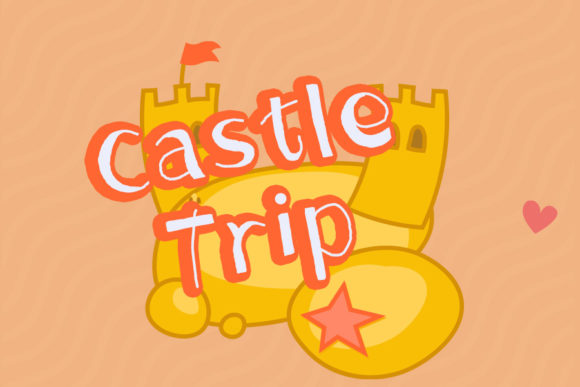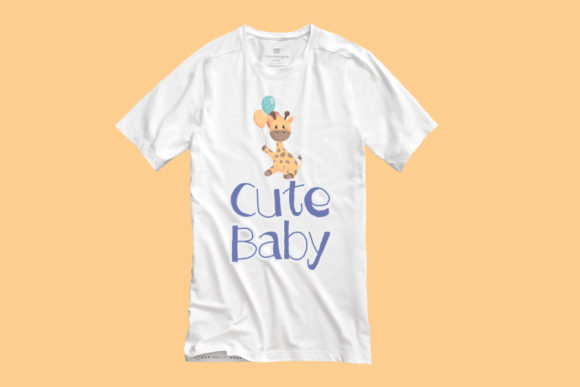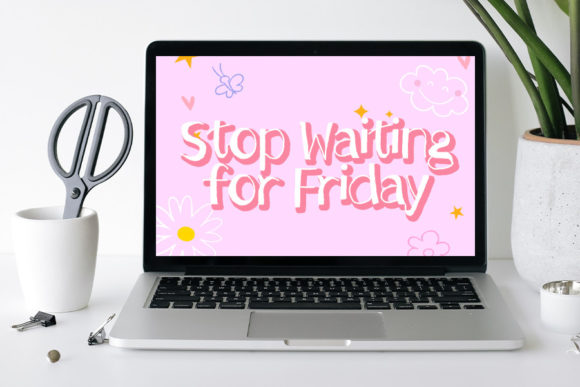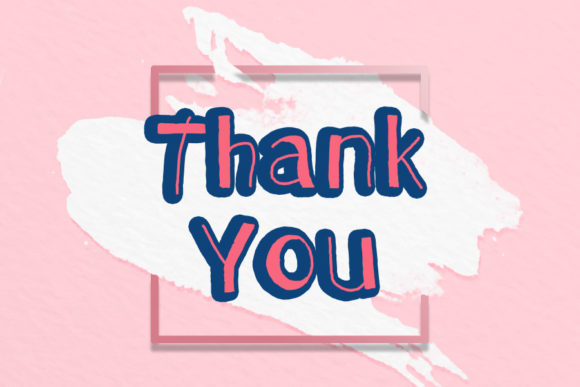
Introducing Creative You Font: The Ultimate Addition to Your Design Collection
Are you tired of using the same old fonts in your designs? Do you want to add a touch of youth and joy to your party invitations, social media graphics, or craft projects? Look no further than the Creative You Font! This cool, incredibly cute, and bubbly display font is perfect for anyone looking to add a dash of fun and personality to their designs.
The Perfect Font for Party Invitations and More
Creative You Font is specifically designed to bring a sense of excitement and playfulness to your designs. Whether you’re creating party invitations, swimming gathering posters, or social media graphics, this font is sure to make your designs stand out. Its bubbly and youthful vibe makes it perfect for:
- Party invitations: Birthdays, baby showers, bachelorette parties, and more!
- Swimming gathering posters: Invite friends and family to a fun day of swimming and sun!
- Social media graphics: Add a pop of fun and personality to your Instagram posts and stories.
- Craft projects: Use Creative You Font to add a touch of whimsy to your DIY crafts, such as handmade cards and gift tags.
What Makes Creative You Font So Special?
So, what sets Creative You Font apart from other fonts? Here are just a few features that make it a must-have for designers and crafters:
- Cute and bubbly design: The Creative You Font features a playful, hand-drawn design that’s sure to bring a smile to anyone’s face.
- Highly legible: Despite its playful design, Creative You Font is highly legible, making it perfect for use in a variety of designs.
- Versatile: Use Creative You Font in a variety of designs, from digital graphics to print materials.
- Easily customizable: Adjust the font size, color, and style to fit your design needs.
How to Use Creative You Font in Your Designs
Using Creative You Font in your designs is easy! Here are a few tips to get you started:
- Pair it with other fonts: Combine Creative You Font with other fonts to create a unique and eye-catching design.
- Use it as a headline font: Creative You Font is perfect for use as a headline font, adding a touch of fun and personality to your designs.
- Add it to your craft projects: Use Creative You Font to add a touch of whimsy to your DIY crafts, such as handmade cards and gift tags.
If you’re looking for a font that will add a touch of youth and joy to your designs, look no further than Creative You Font. This cool, incredibly cute, and bubbly display font is perfect for designers and crafters who want to create fun and playful designs. With its highly legible design, versatility, and ease of use, Creative You Font is sure to become a staple in your design collection.